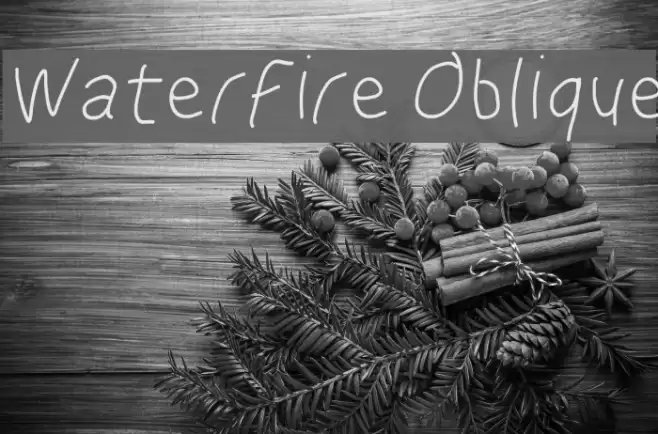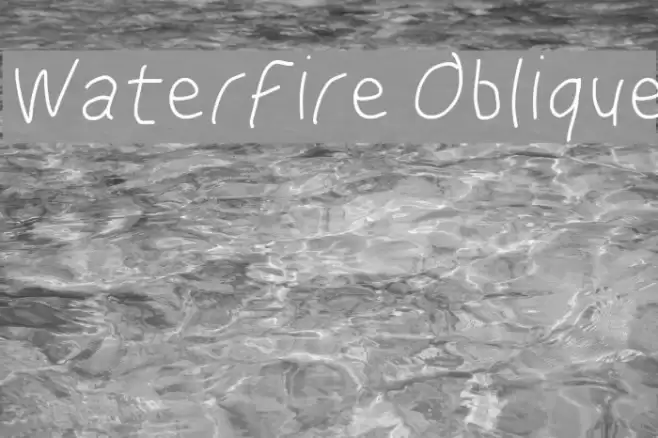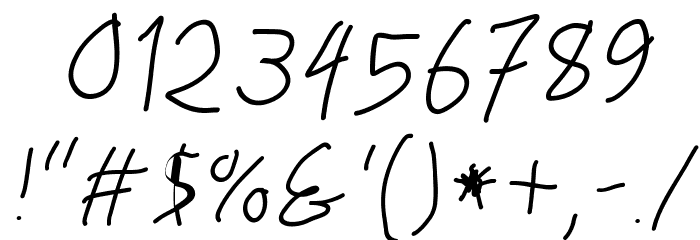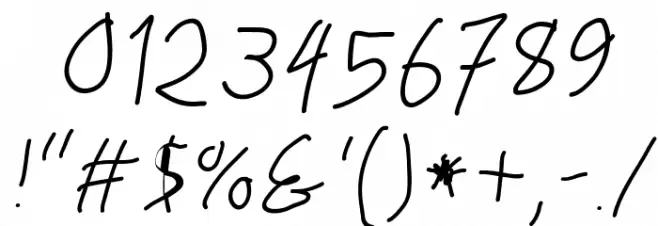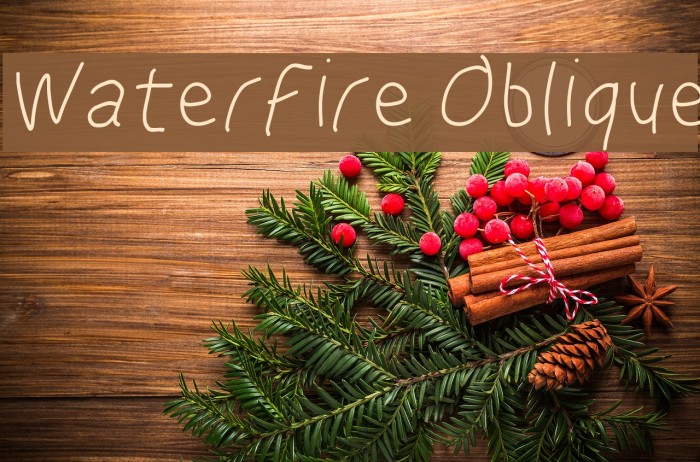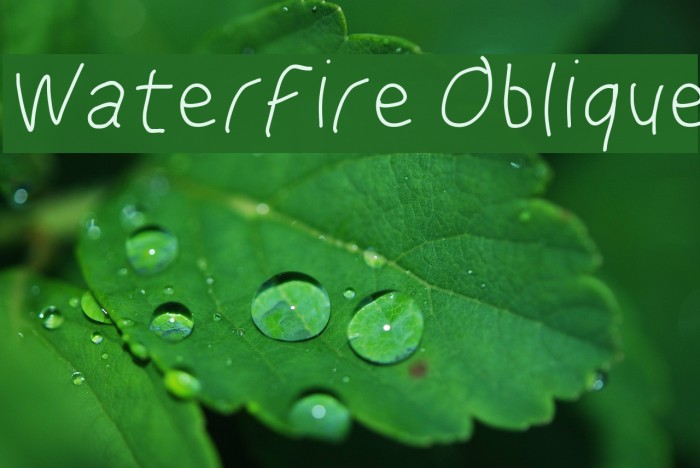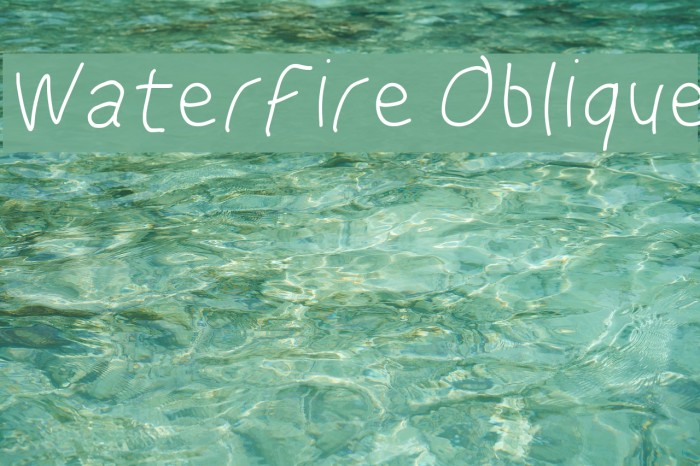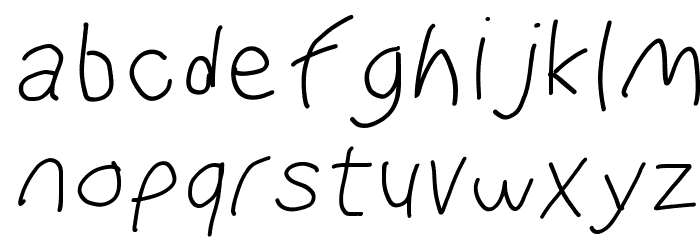
WaterFire Oblique Font
WaterFire Oblique Description
This font features a playful and casual handwritten style, characterized by its oblique orientation and smooth, flowing lines. The letters are slightly slanted, giving a dynamic and informal appearance. The strokes are consistent in width, providing a uniform look across all characters. The uppercase and lowercase letters maintain a cohesive style, with rounded edges and a slight tilt that enhances the handwritten feel. Numbers and special characters follow the same aesthetic, ensuring a harmonious overall design. This font is ideal for projects that require a personal touch, such as invitations, greeting cards, or creative branding.
A playful, oblique handwritten font with smooth, flowing lines from Uncategorized fonts.
- Proposed Projects: Ideal for invitations, greeting cards, creative branding, and personal projects.
- Overall Style: Casual, Playful
- Use Case: Headlines, Logos, Personal projects